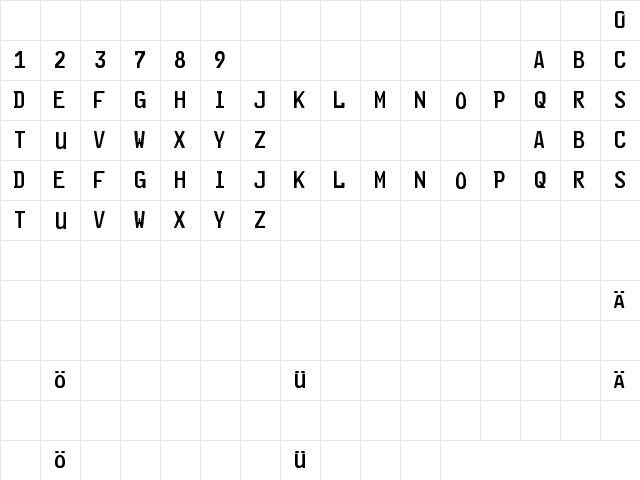
Kraftfahrzeugkennzeichen Regular
Design Context for Kraftfahrzeugkennzeichen Typeface
Kraftfahrzeugkennzeichen is a composed and adaptable typeface that performs quietly and consistently across a wide range of design contexts.